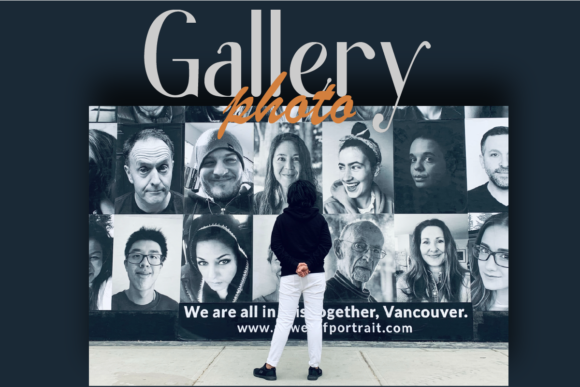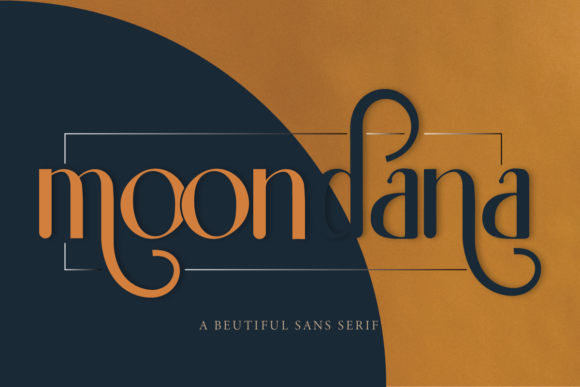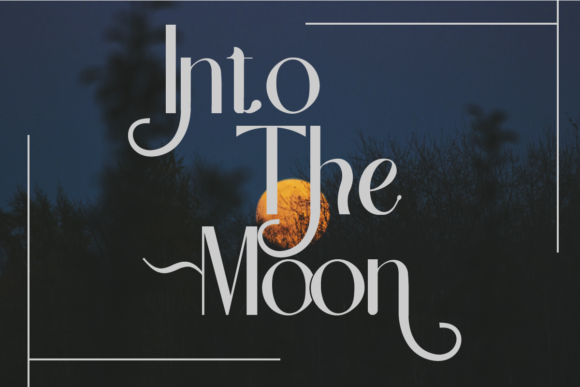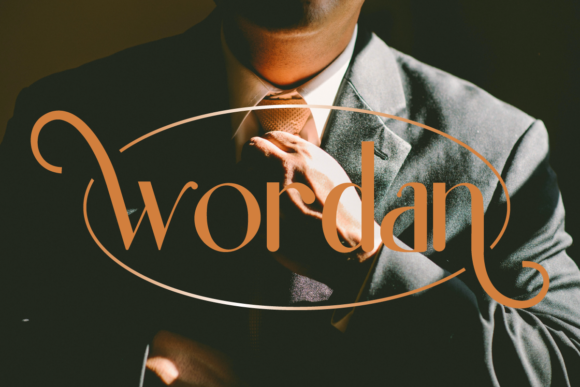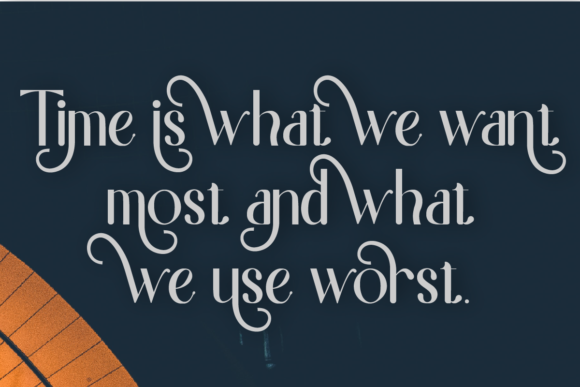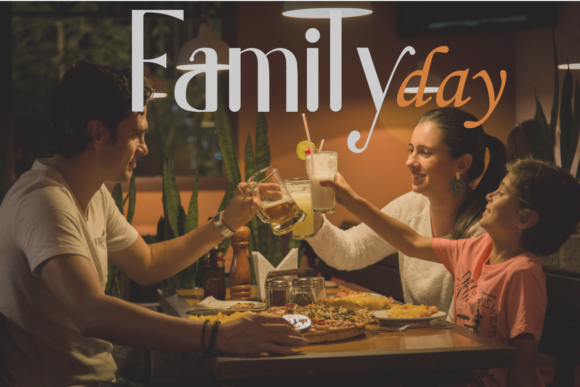
Introduction to Moondana Font
As a designer, there’s nothing quite like the thrill of stumbling upon a game-changing design resource that elevates your creative project to new heights. For me, that moment came when I discovered the Moondana Font – an incredibly elegant and thin lettered sans serif font that has become a staple in my design arsenal.
Whether you’re crafting a bespoke wedding invitation or a heartfelt thank you card, the Moondana Font brings a touch of sophistication and refinement to your design. Its versatility is unmatched, making it an ideal choice for logos, business cards, quotes, and any other project that demands a customized look. With its sleek, high-quality aesthetic and transparent background, this font is a designer’s dream come true.
Key Features of Moondana Font
- Includes a range of characters, including uppercase and lowercase letters, numbers, and special characters.
- Unique, hand-drawn style that adds a personal touch to any creative project, from digital art to print materials.
Honest Review: Moondana Font
I recently had the chance to work with the Moondana Font, and I must say it’s been a great addition to my design resources. ✨ The font’s unique, modern aesthetic has been perfect for my latest creative project, and the free download has been a huge plus.
One of the standout features of the Moondana Font is its ability to be used with a transparent background. This has allowed me to get creative with my designs and really make them pop. The high quality of the font has also been impressive, with clear, crisp lines that make it easy to read.
Here are some of the things that work well with the Moondana Font:
- Modern aesthetic that’s perfect for creative projects
- High quality, clear, and crisp lines
- Can be used with a transparent background
One limitation I’ve noticed is that the font can be a bit difficult to read in smaller sizes. ⚠️ This has been a challenge for me in some of my designs, but overall, the font has been a great addition to my design resources.
Overall, I’m really impressed with the Moondana Font and would highly recommend it to anyone looking for a high-quality, modern font for their creative project.
How to Use Moondana Font
The Moondana Font is a high-quality design resource perfect for creative projects. With its unique and elegant style, it’s ideal for designers looking for a distinctive touch.
The Moondana Font is perfect for various design projects, including:
- Wedding invitations
- Brochures
- Posters
Alternatives to Moondana Font
The Great Vibes Font is a beautiful, elegant script font ideal for creative projects that require a touch of sophistication. It’s perfect for designs with transparent backgrounds or overlays, allowing the text to stand out.
When to use: Wedding invitations, luxury branding, or any high-end design project. Great Vibes Font offers a more refined feel compared to Moondana Font’s playful vibe.
Pacifico Font is a stylish, cursive font suitable for designs that require a relaxed, beachy feel. It’s perfect for creative projects that need a calming atmosphere.
When to use: Travel brochures, beach-themed designs, or any project that requires a soothing ambiance. Pacifico Font offers a more laid-back feel compared to Moondana Font’s whimsical nature.